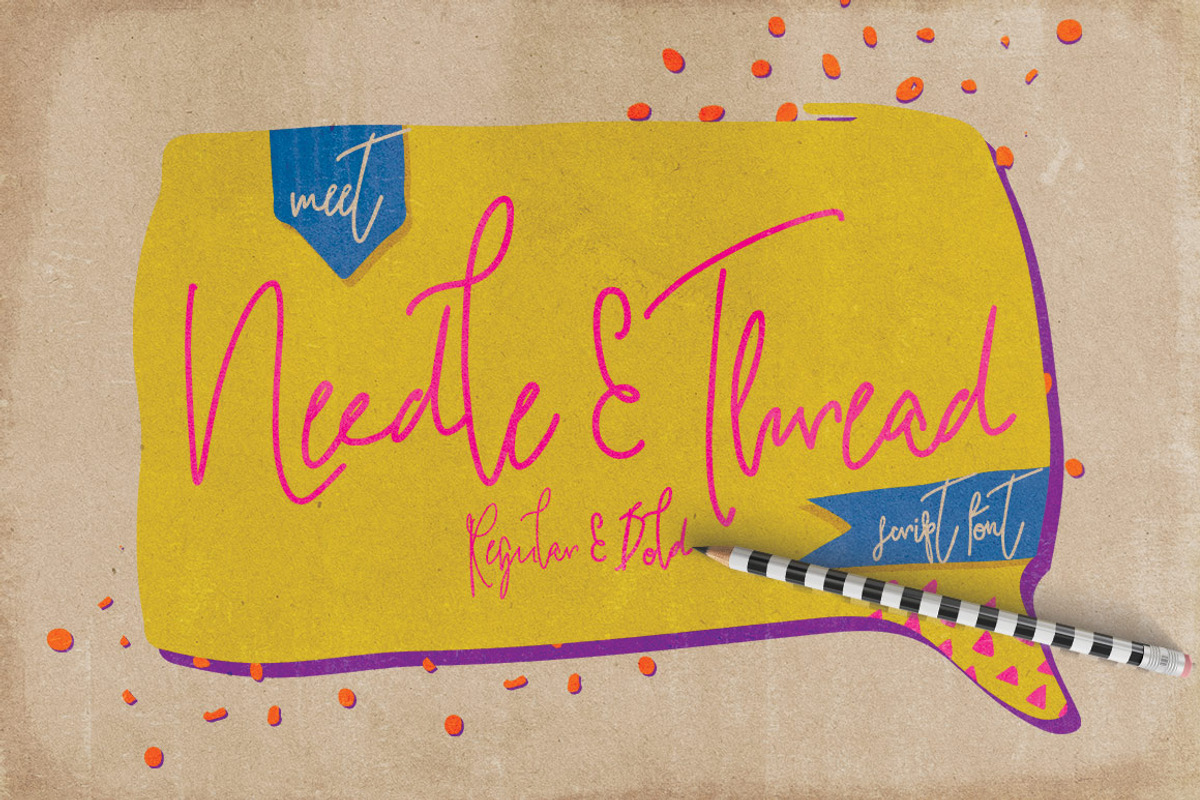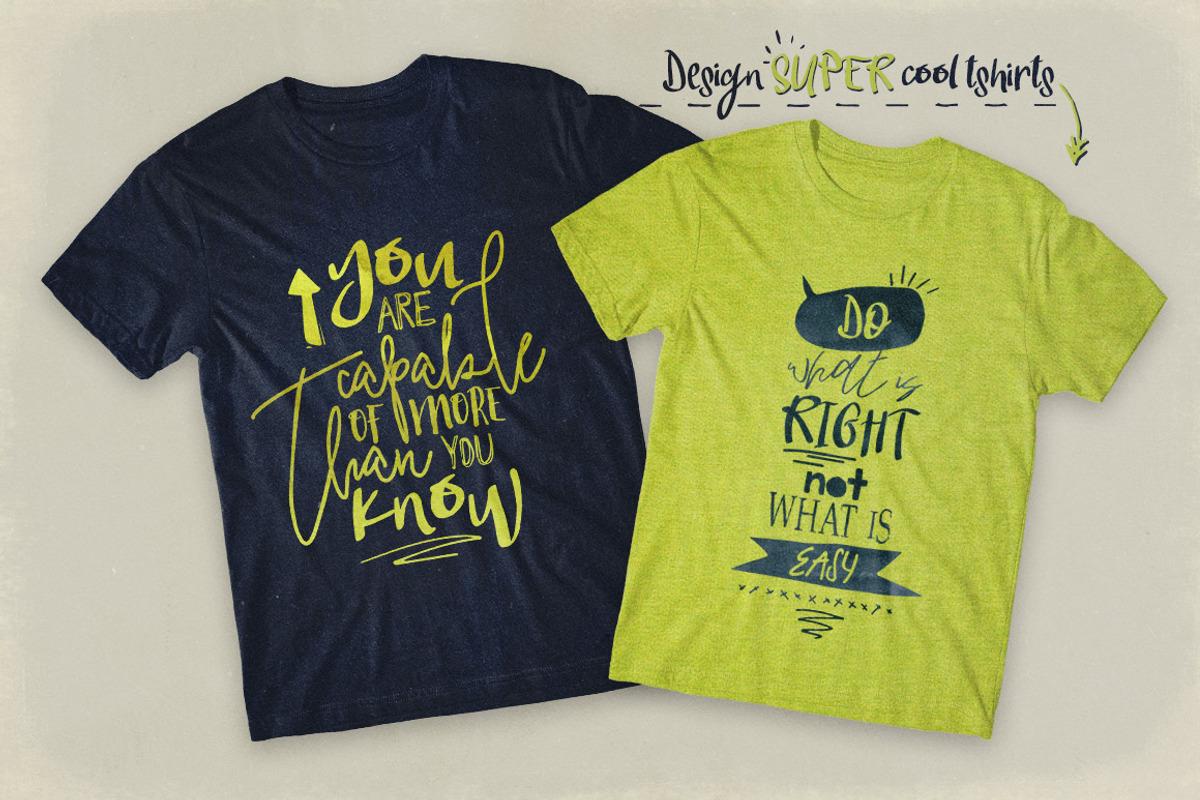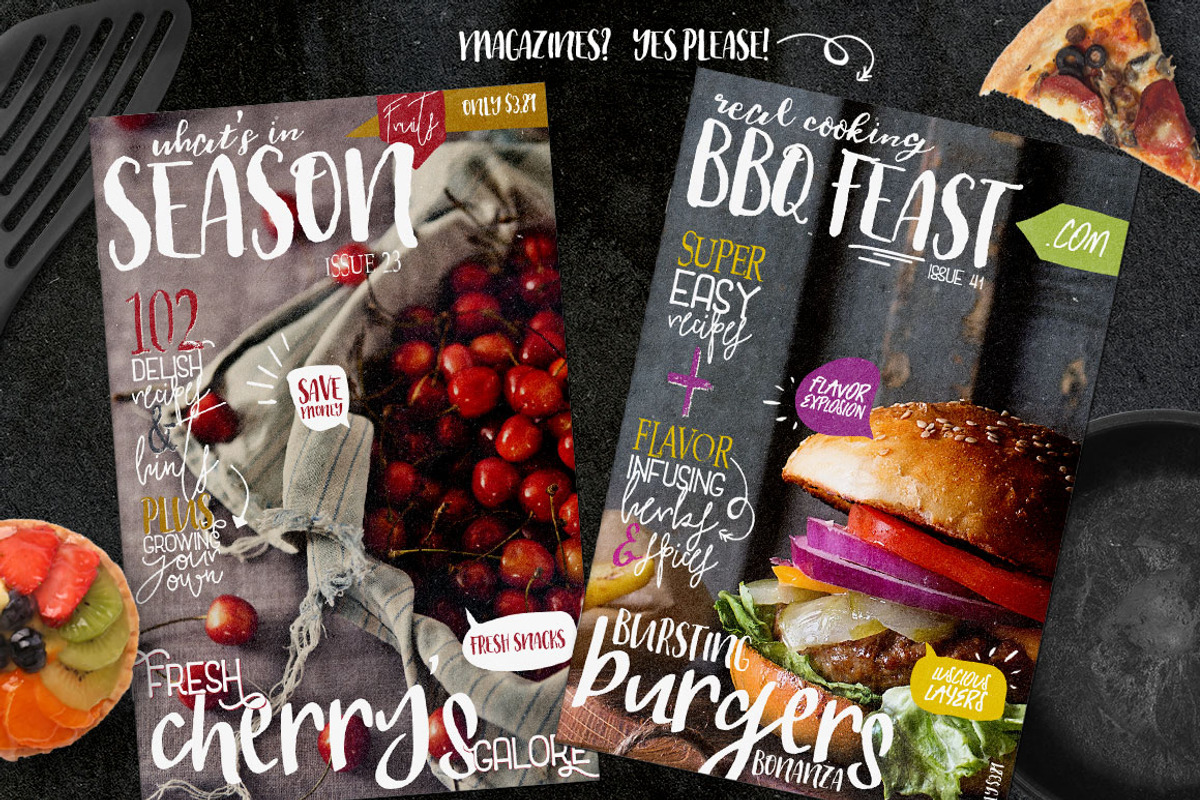
Needle & Thread Font Family
Needle & Thread Font Family by Creativeqube Design is a font selected for branding, posters, packaging, typography.
- It also has loads of Standard ligatures for those double letters.
Why Needle & Thread Font Family is worth a look
Needle & Thread Font Family by Creativeqube Design fits naturally into Branding, posters, packaging, typography.